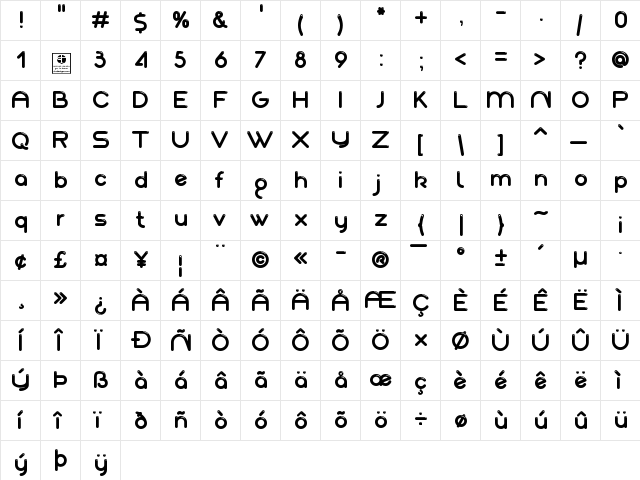
Akaju Shine Regular
Design Context for Akaju Shine Typeface
Akaju Shine offers clean, dependable letterforms without strong stylistic allegiance, making it a practical choice for designers who need flexibility.
Pro Tip: Use Akaju Shine in both headline and body roles to test its range before committing to a single application.